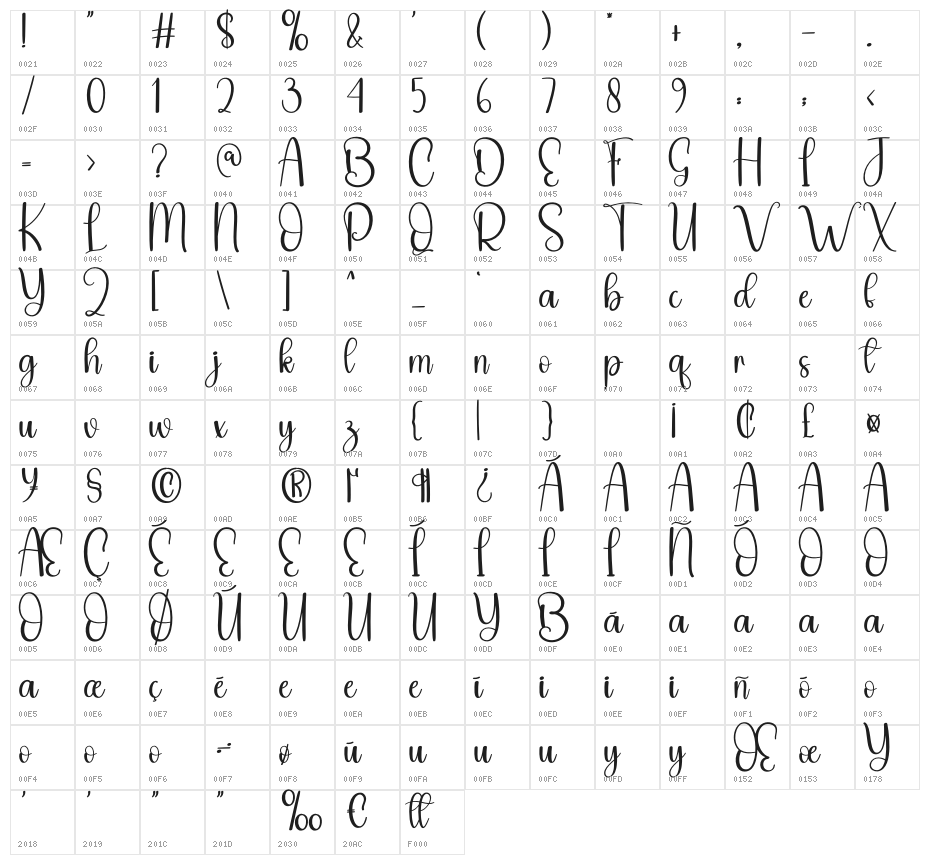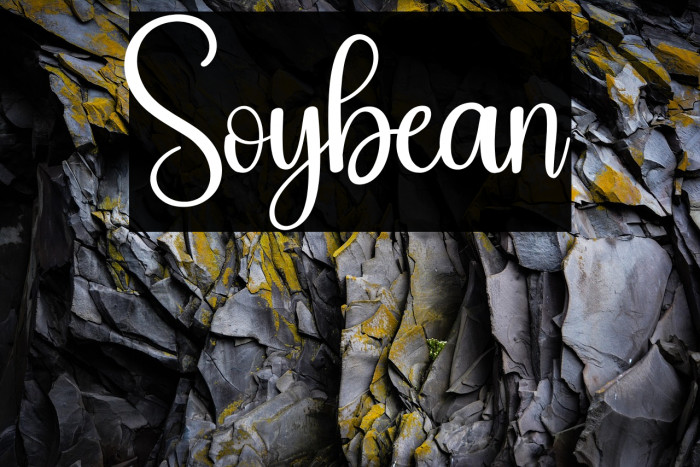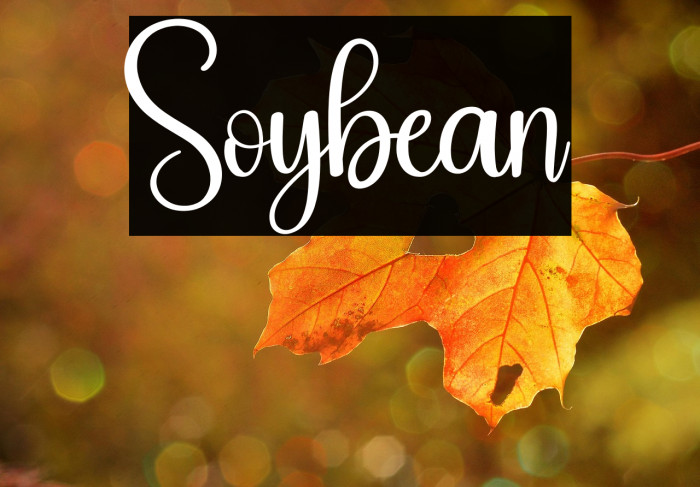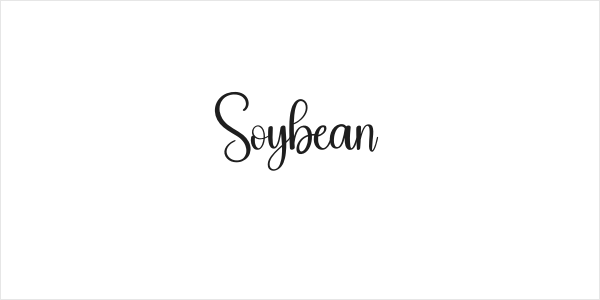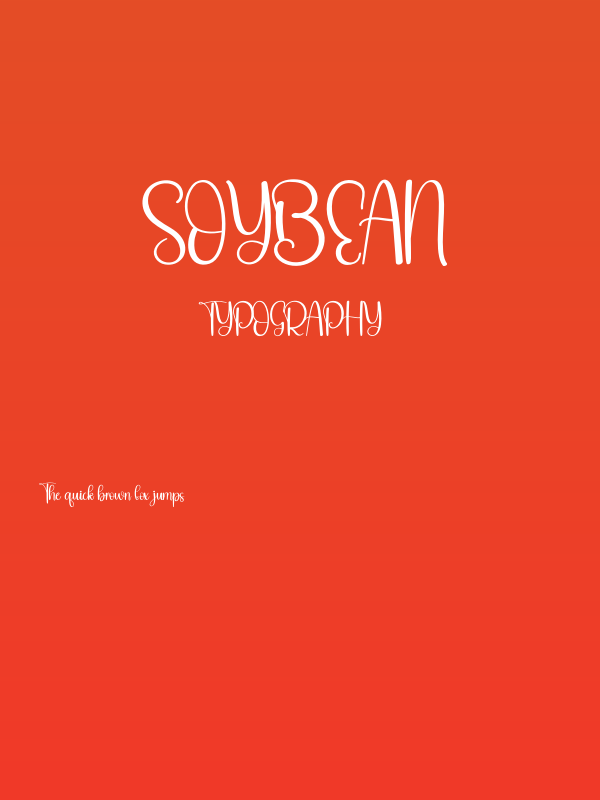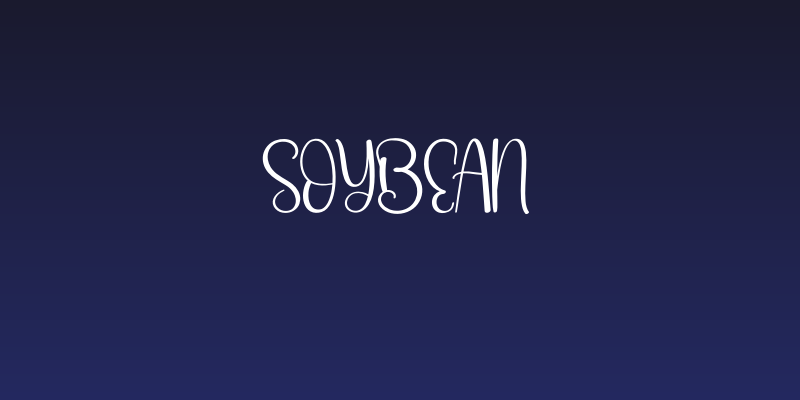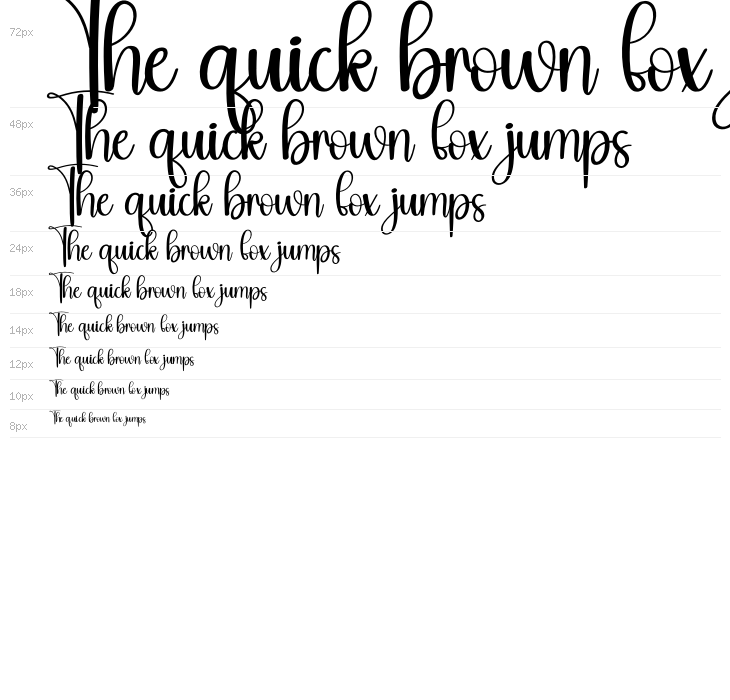
Soybean Font
Soybean Description
This font features a playful and whimsical script style, characterized by its flowing, cursive letterforms. The uppercase letters are elegantly looped and swirled, while the lowercase letters maintain a consistent fluidity, creating a harmonious balance. The numbers and special characters are designed to match the overall aesthetic, with a touch of flair that adds to the font's charm. The strokes vary in thickness, providing a moderate contrast that enhances readability while maintaining a decorative appeal. This font is ideal for projects that require a personal, handwritten touch.
| Proposed Projects | Greeting cards, wedding invitations, branding, social media graphics, and personal projects. |